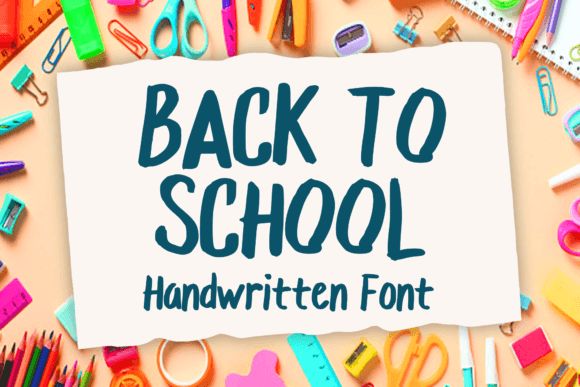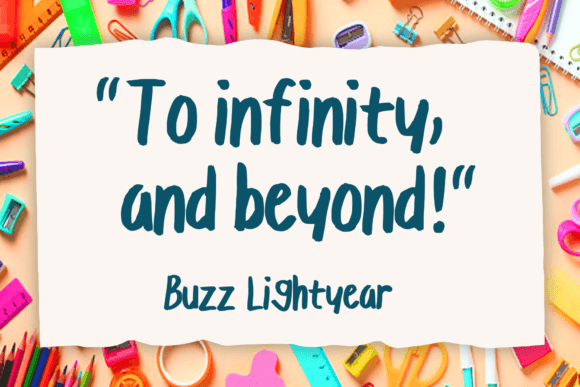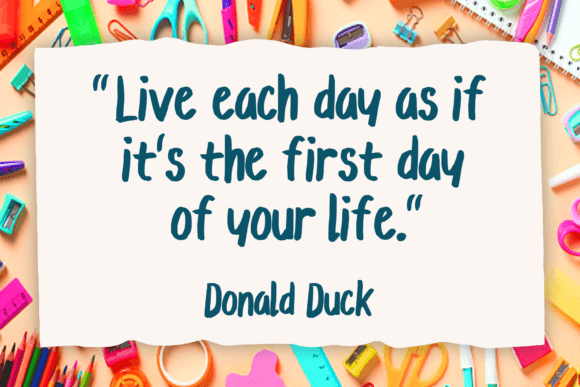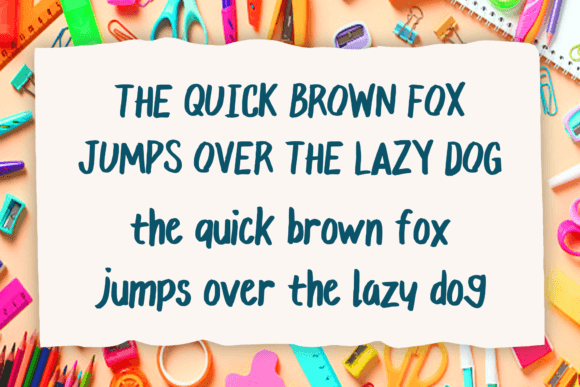
Add Quirky Charm with Back to School Font
The Back to School font is a quirky handwritten script designed to add fun and personality to your everyday projects. Perfect for school-related designs, this font is also incredibly versatile, making it suitable for a wide variety of creative uses. Whether you’re designing t-shirts, kids’ books, greeting cards, stickers, or posters, Back to School brings a playful and casual vibe.
Perfect for Kids’ Books, Apparel, and Stationery
The Back to School font fits a range of applications including children’s book illustrations, apparel designs, school projects, social media graphics, and product packaging. Its quirky, hand-crafted style adds warmth and uniqueness, helping your work connect with audiences of all ages.
A Handwritten Script Full of Personality
Each character in the Back to School font is crafted with care to provide smooth flow and clear readability. The font’s lively strokes and playful curves give your text a fun and approachable appearance, enhancing logos, headlines, quotes, and personalized designs.
Despite its quirky style, the Back to School font maintains excellent readability across various sizes. Whether used for bold titles or smaller accents, it balances charm and clarity, making it a reliable choice for many creative projects.
Make Your Designs Stand Out with Playful Energy
Typography sets the tone for your message, and Back to School adds a cheerful and casual spirit. Perfect for creatives seeking a handcrafted script font with versatile appeal, download the Back to School font today and bring playful warmth to your projects.